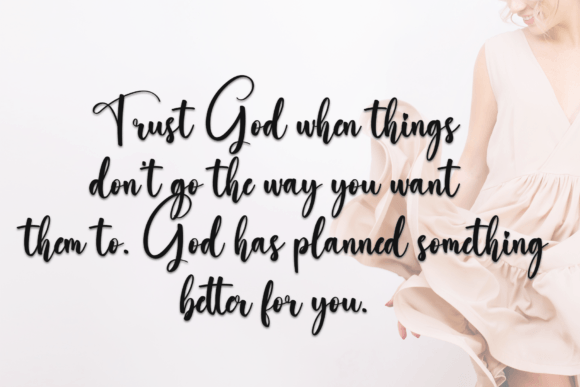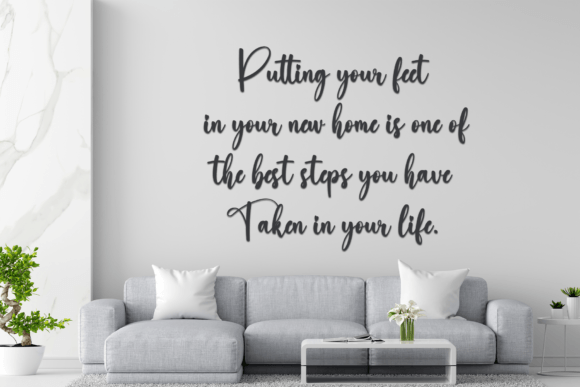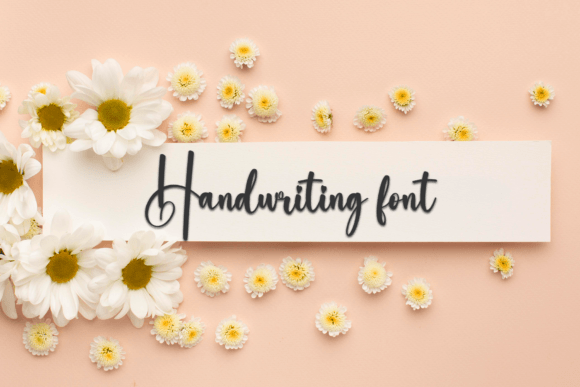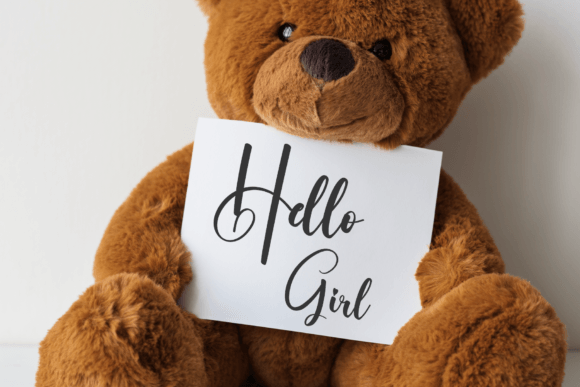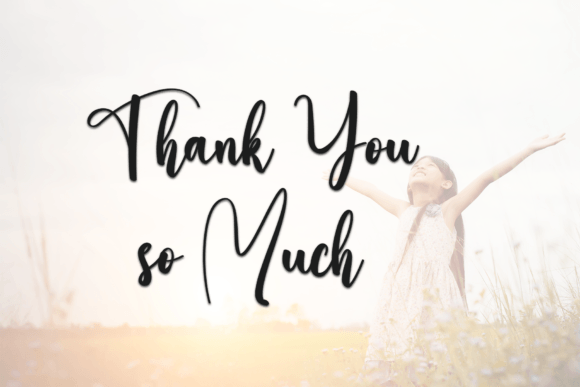
Discover the Elegance of Amisha Font: Elevate Your Designs with Timeless Style
Are you on the hunt for a font that exudes elegance, sophistication, and a touch of timeless charm? Look no further than the Amisha Font, a stunning handwritten typeface that is sure to capture your heart. With its incredibly distinct style and versatile nature, Amisha is the perfect addition to any design project, whether you’re a seasoned designer or a crafty DIY enthusiast.
What Makes Amisha Font So Special?
Amisha Font is described as a neat and beautiful handwritten font, characterized by an elegant touch that sets it apart from other typefaces. Its unique blend of classic and modern elements makes it an excellent choice for a wide range of design applications, from wedding invitations and branding materials to social media graphics and blog posts.
One of the standout features of Amisha Font is its legibility. Despite its elegant and cursive nature, the font remains highly readable, even at smaller sizes. This makes it an excellent choice for body text, as well as for headlines and titles.
Perfect for Your Favorite Projects
So, what can you use Amisha Font for? The possibilities are endless! Here are just a few ideas to get you started:
• Wedding Invitations: Add a touch of romance and sophistication to your wedding invitations, save-the-dates, and other stationery with Amisha Font.
• Branding Materials: Use Amisha Font to create stunning logos, business cards, and brochures that showcase your brand’s personality and style.
• Social Media Graphics: Elevate your social media presence with eye-catching graphics, quotes, and posts that feature Amisha Font.
• Blog Posts: Add a touch of elegance to your blog posts, articles, and other written content with Amisha Font.
• Crafting Projects: Use Amisha Font to create beautiful handmade cards, gift tags, and other crafting projects that showcase your creativity.
Why Choose Amisha Font?
With so many fonts available, why choose Amisha Font? Here are just a few reasons why designers and crafters love this beautiful typeface:
• Unique Style: Amisha Font boasts an incredibly distinct and timeless style that sets it apart from other fonts.
• Elegant Touch: The font’s elegant touch adds a touch of sophistication and refinement to any design project.
• Versatility: Amisha Font is highly versatile, making it suitable for a wide range of design applications.
• Easy to Read: Despite its elegant nature, Amisha Font remains highly readable, even at smaller sizes.
Get Ready to Fall in Love with Amisha Font
If you’re looking for a font that will elevate your designs and add a touch of timeless elegance, look no further than Amisha Font. With its unique style, elegant touch, and versatility, Amisha is sure to become your go-to font for all your design projects.
So, what are you waiting for? Discover the beauty of Amisha Font today and get ready to create spectacular designs that will leave a lasting impression!
In conclusion, Amisha Font is a stunning handwritten typeface that is sure to capture your heart. With its unique style, elegant touch, and versatility, Amisha is the perfect addition to any design project. Whether you’re a seasoned designer or a crafty DIY enthusiast, Amisha Font is sure to become your new favorite font.
So, go ahead and fall in love with Amisha Font. Your designs will thank you!